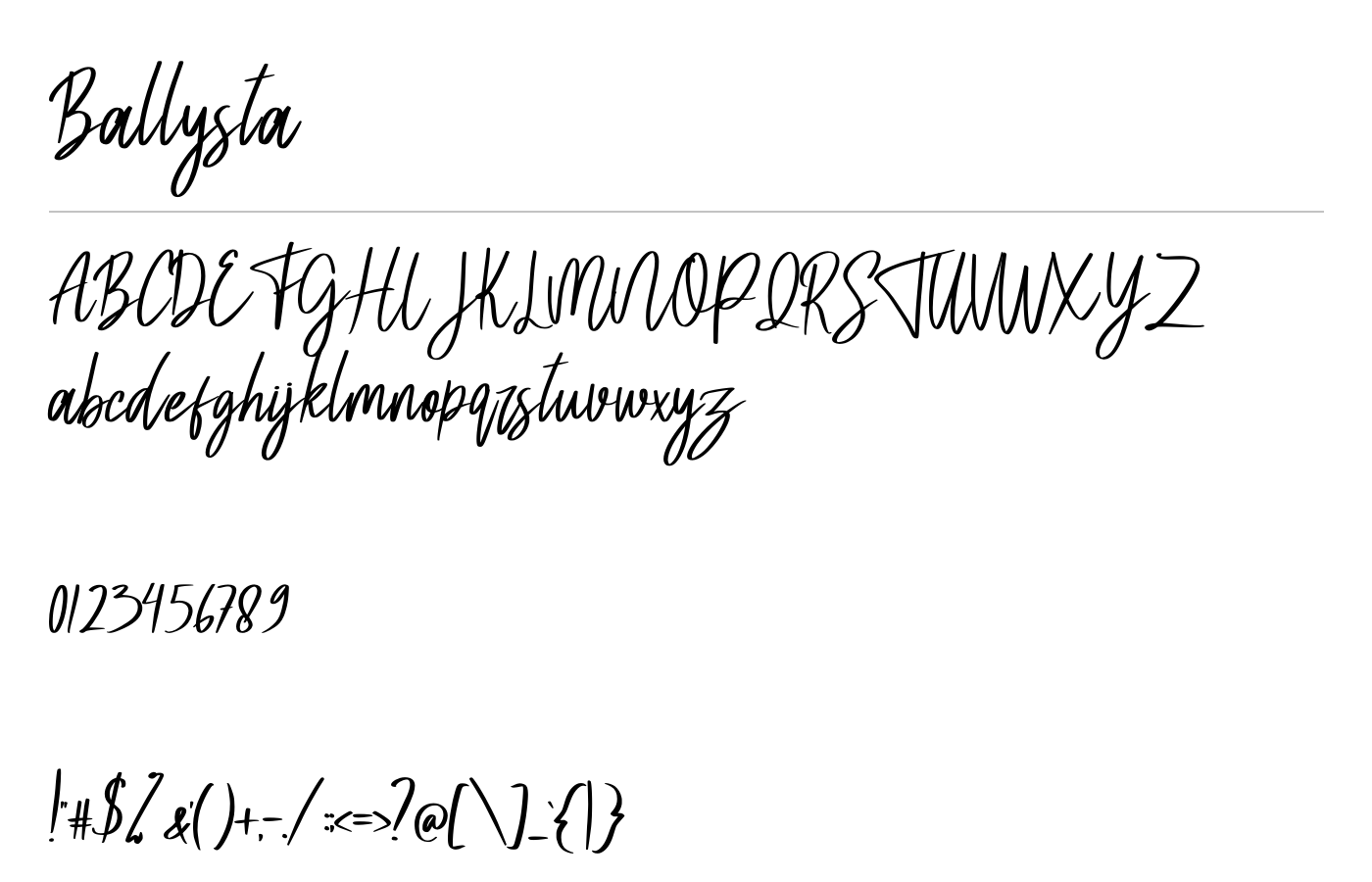
Ballysta is a slender, handwritten script font characterized by its elegant, flowing letterforms and moderate contrast in stroke weight. With its tall, narrow proportions and smooth, slightly irregular lines, it conveys a personal, sophisticated, and approachable feel, making it ideal for stylish branding, invitations, and creative headlines. Its airy spacing and delicate curves give it a modern, artistic personality that works well where a refined yet casual touch is desired.
Ballysta Font
About Ballysta Font